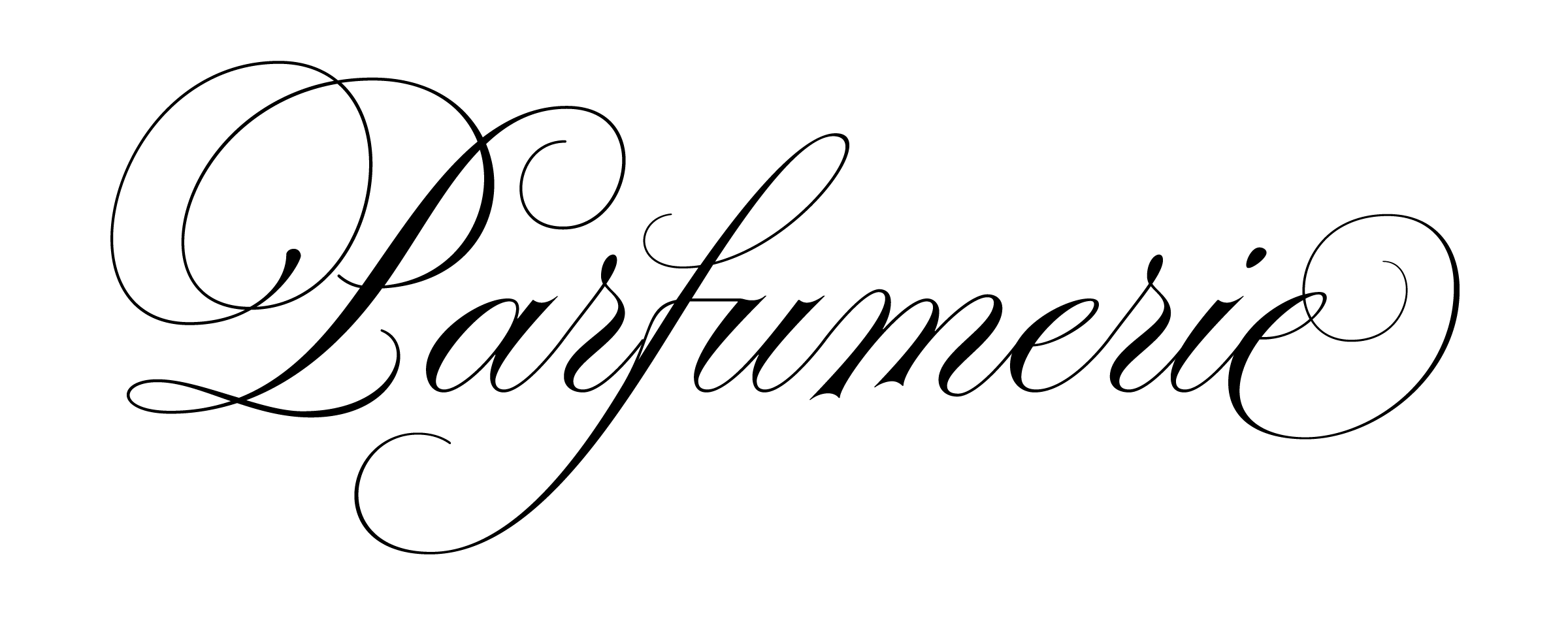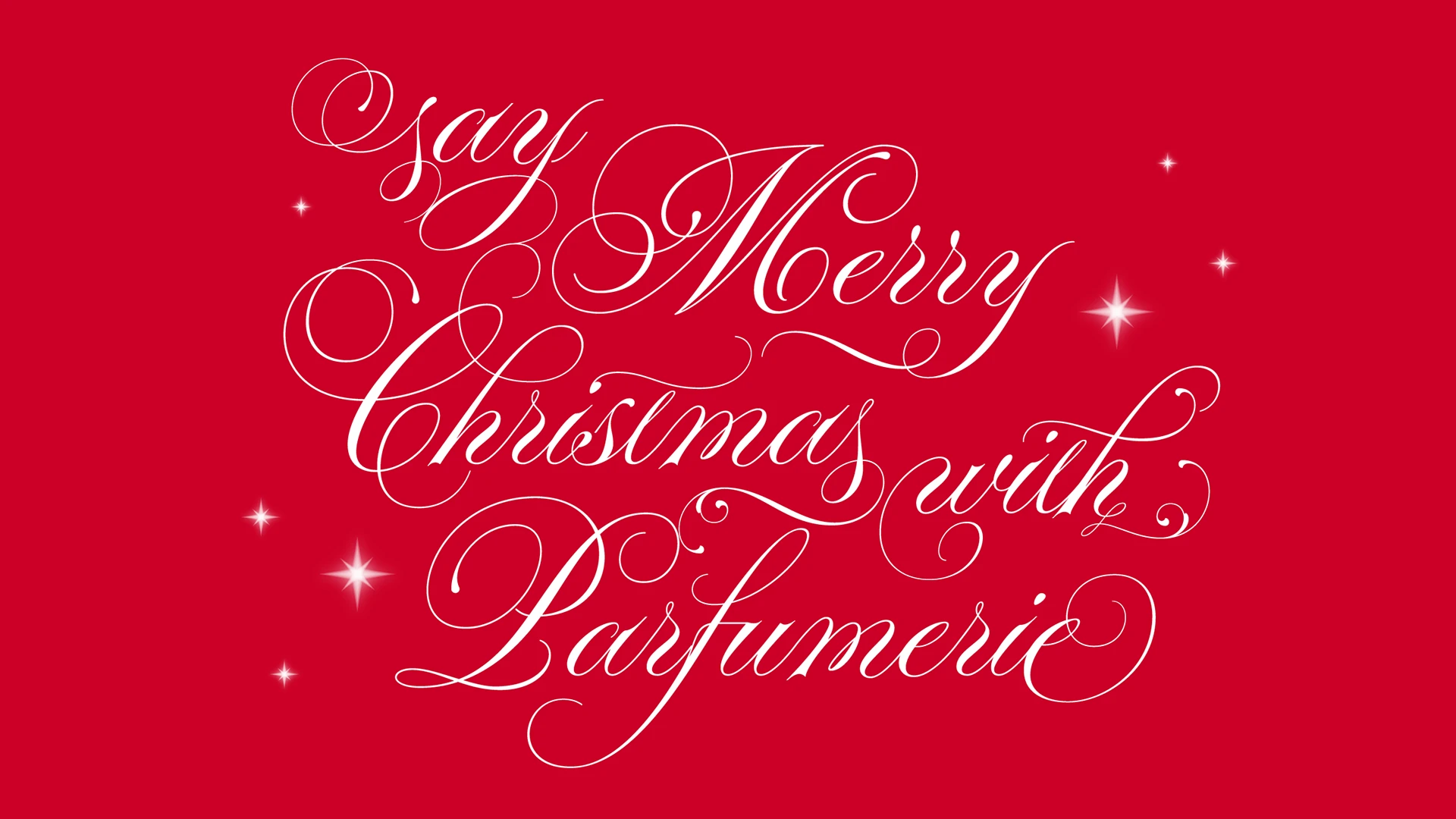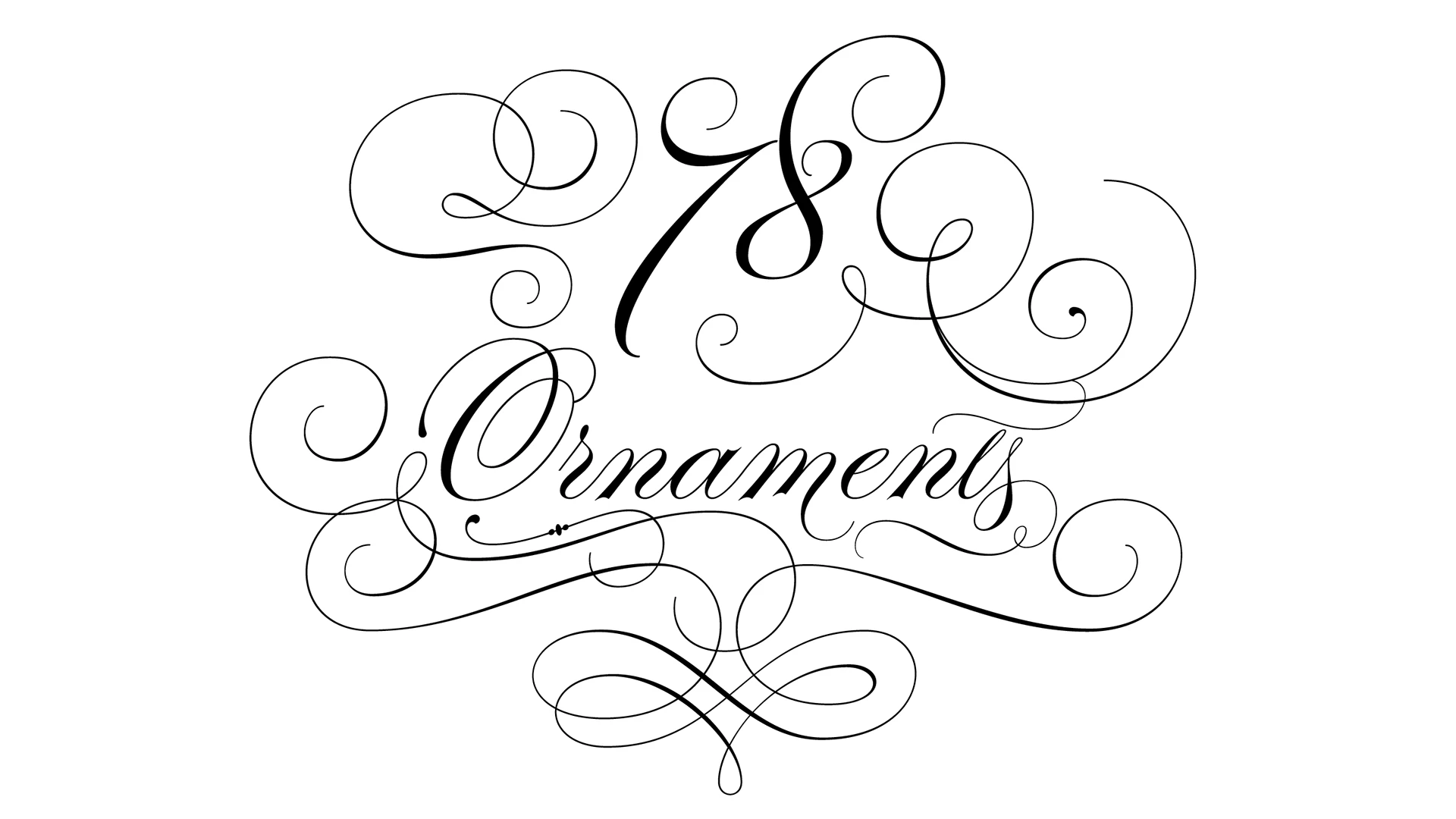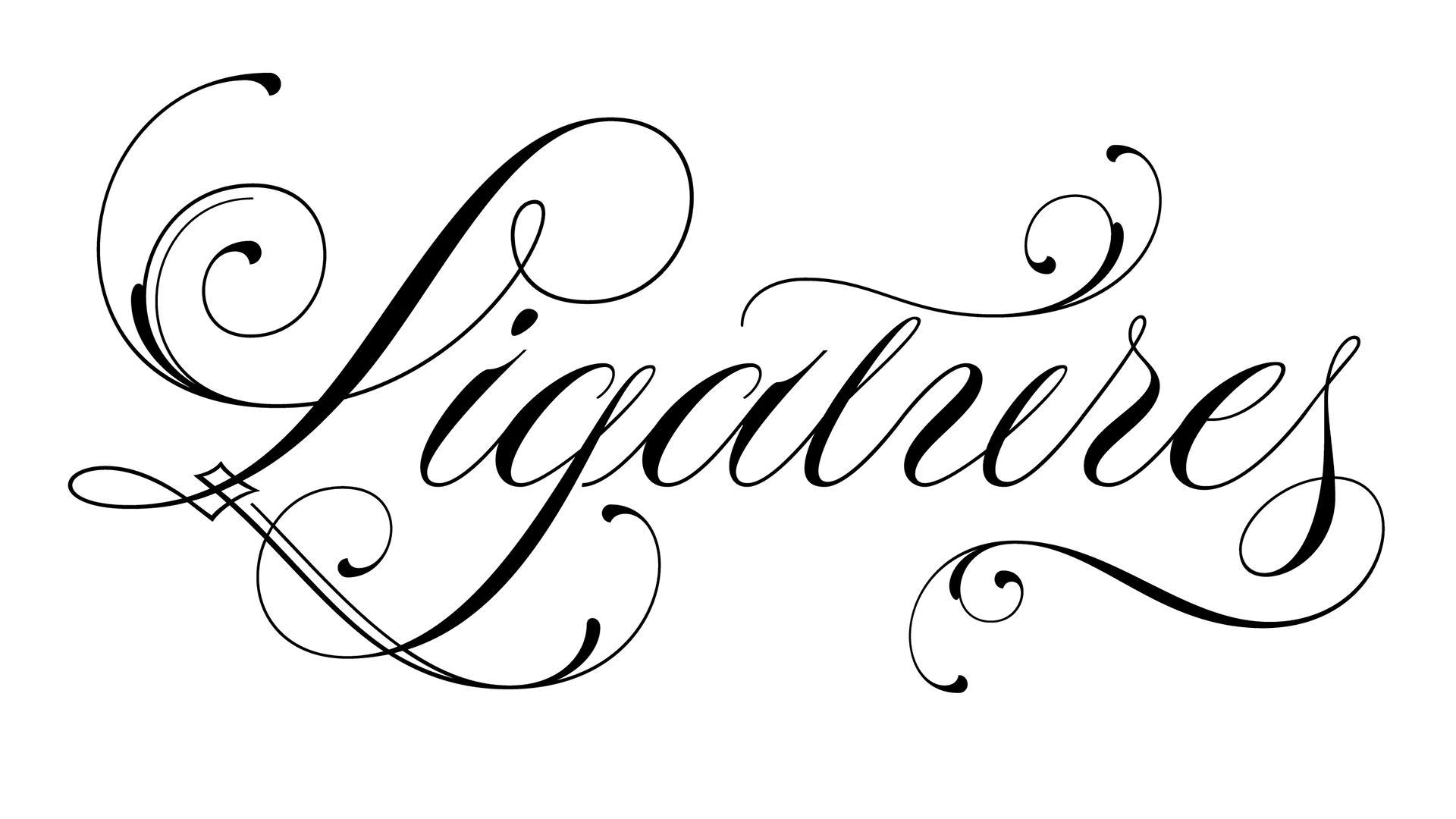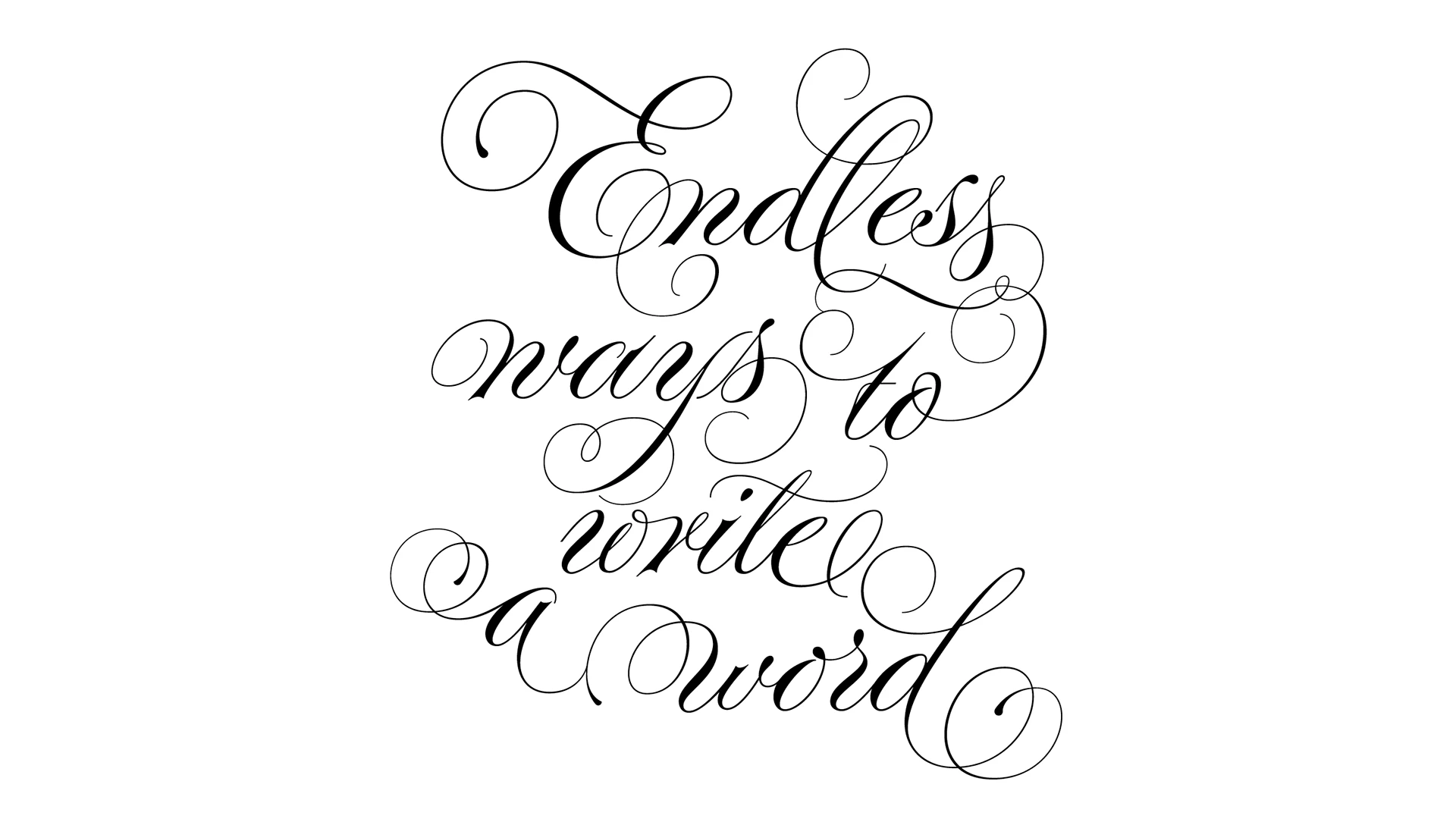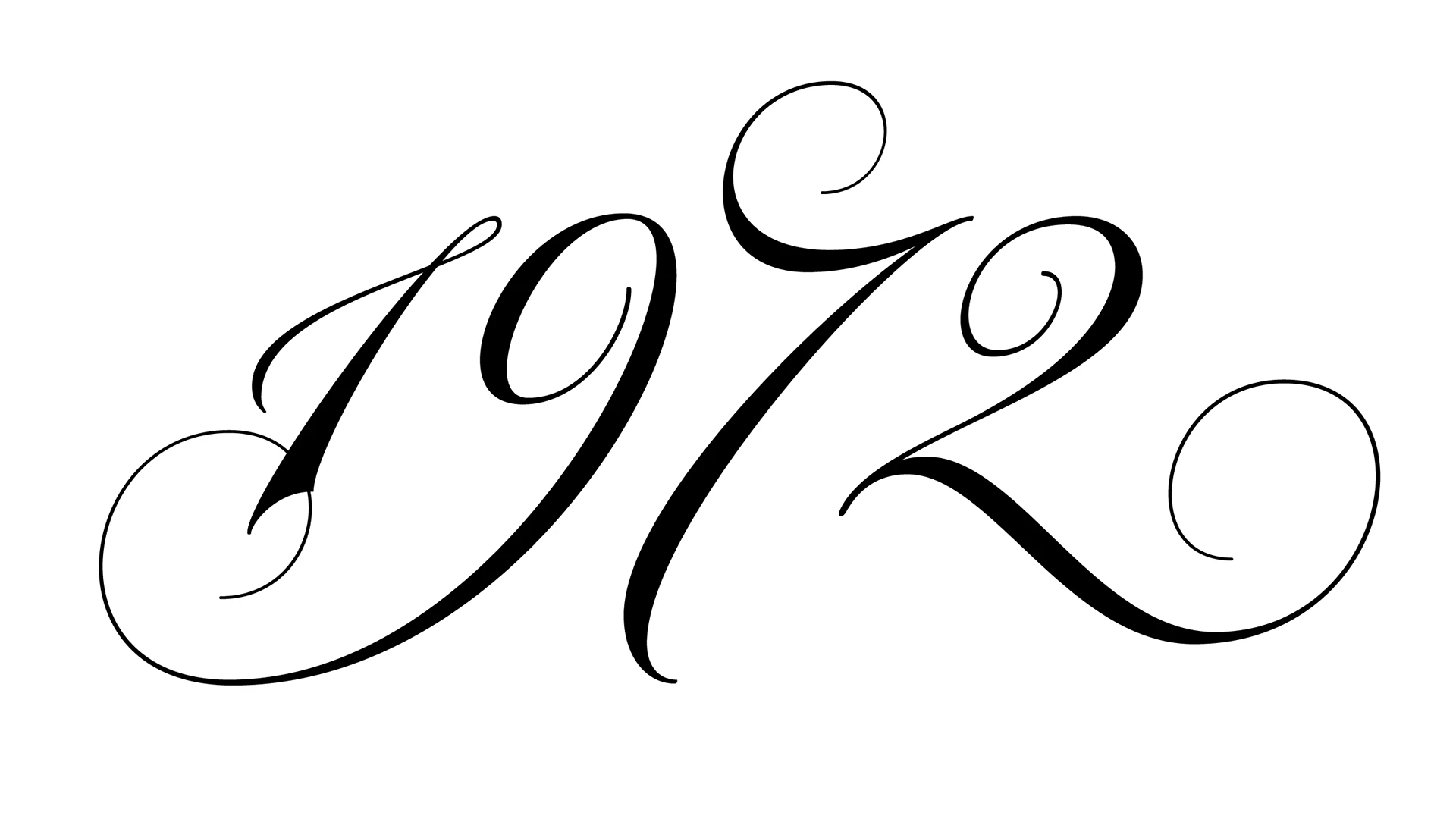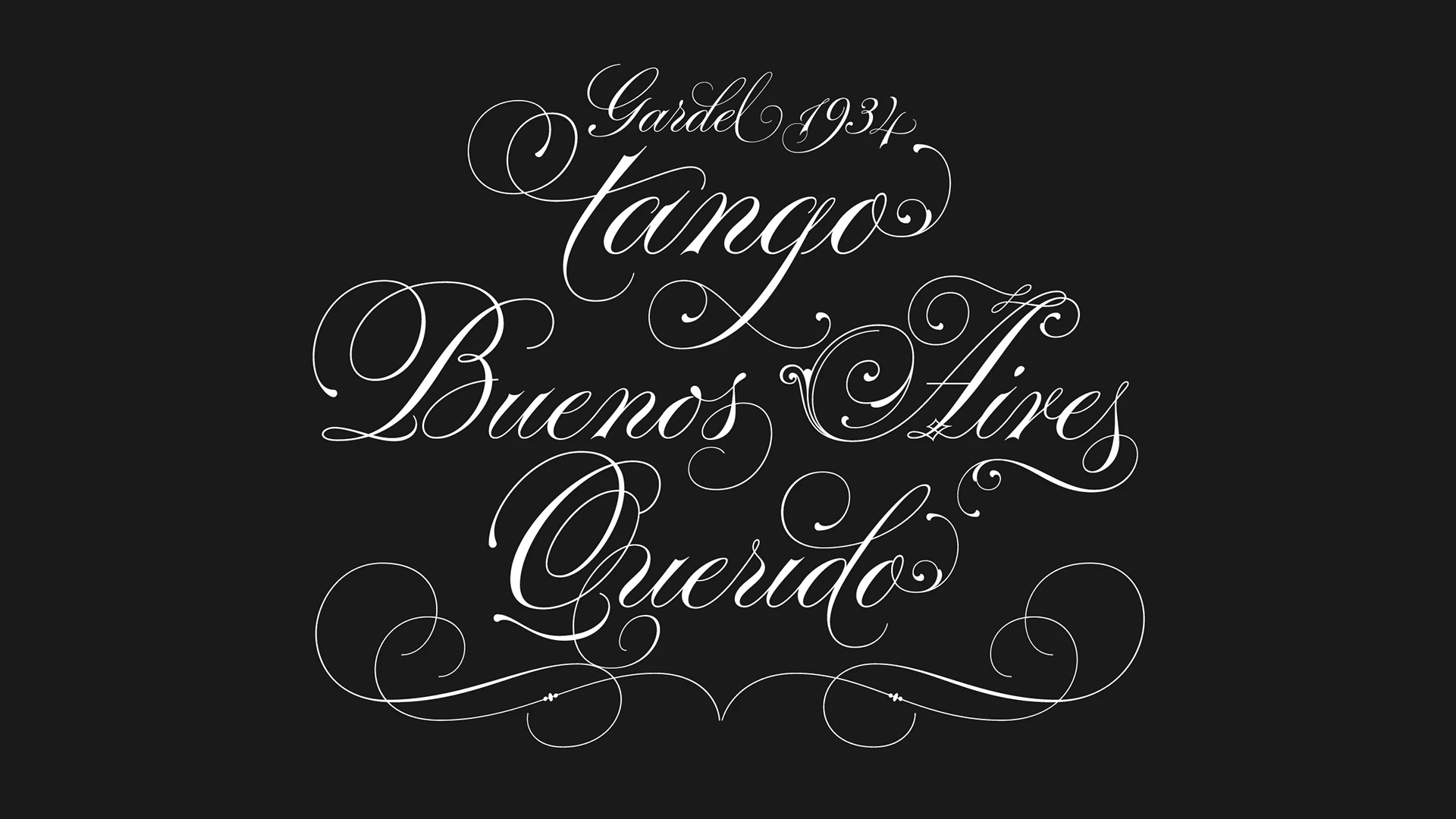
Parfumerie Script Font
Parfumerie Script is a sophisticated calligraphic font defined by its smooth curves, clean lines and the finest of fine strokes. Graceful and refined in its most basic script form, a range of Swash and Decorative alternates (including a unique local style called Filete Porteño, an ornamental form native to Buenos Aires) allows users to elevate their designs to higher levels of aesthetic beauty and elegance.
Parfumerie Script Pro contains over 2500 glyphs, among which are swashes, ornaments and decorative alternates. Some alternatives are offered separately too.
Parfumerie Script font by Typesenses — the words “Say Merry Christmas with Parfumerie” in an elegant, high-contrast connected script, with small starbursts scattered around
Parfumerie Script font by Typesenses — the word “Ornaments” in an elegant, high-contrast connected script, with the numbers “78” above it, all surrounded by many calligraphic swashes and flourishes
Parfumerie Script font by Typesenses — the word “Ligatures” in an elegant, high-contrast connected script with swash capitals and flourishes.
Parfumerie Script font by Typesenses — the phrase “Endless ways to write a word” in an upright, high-contrast, connected script with many swashes and flourishes
Parfumerie Script font by Typesenses — the numbers 1, 9, 7, and 2 in a flowing, high-contrast connected script with swash-like flourishes
Parfumerie Script font by Typesenses — the words “Gardel 1934”, “tango”, “Buenos Aires”, and “Querido” in an ornate, high-contrast connected script, with a decorative flourish below